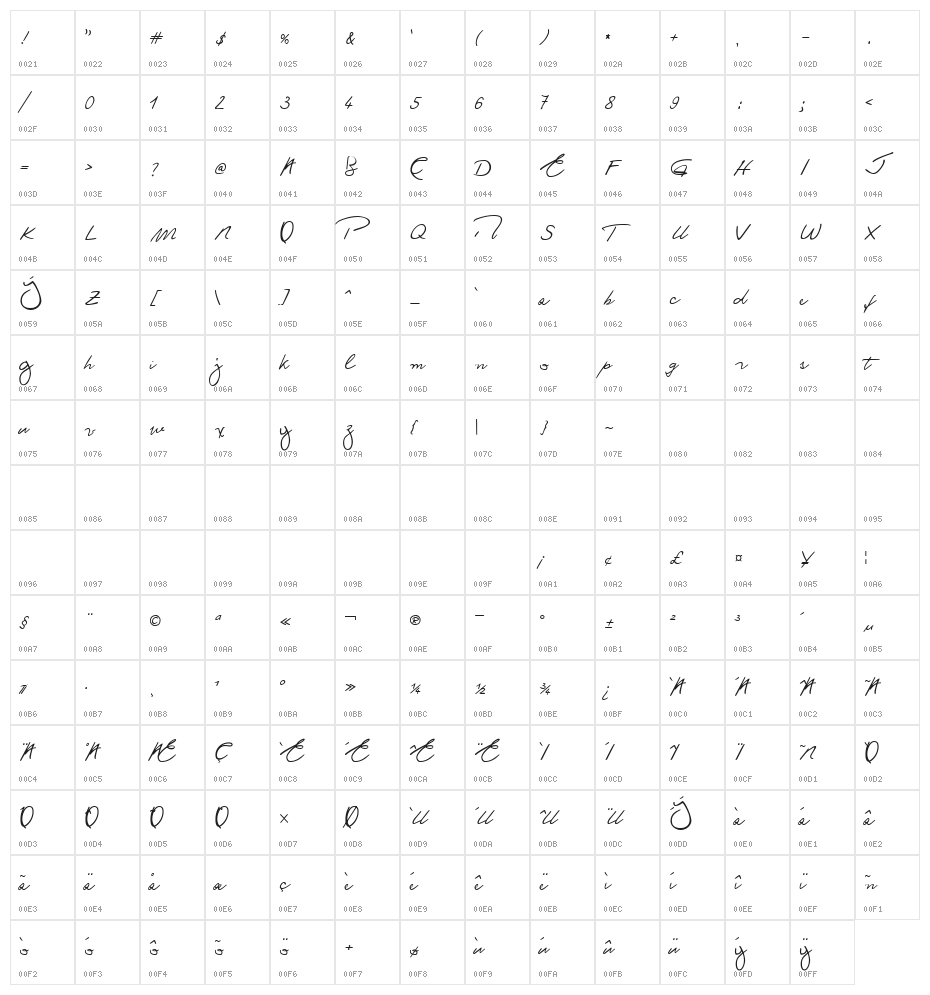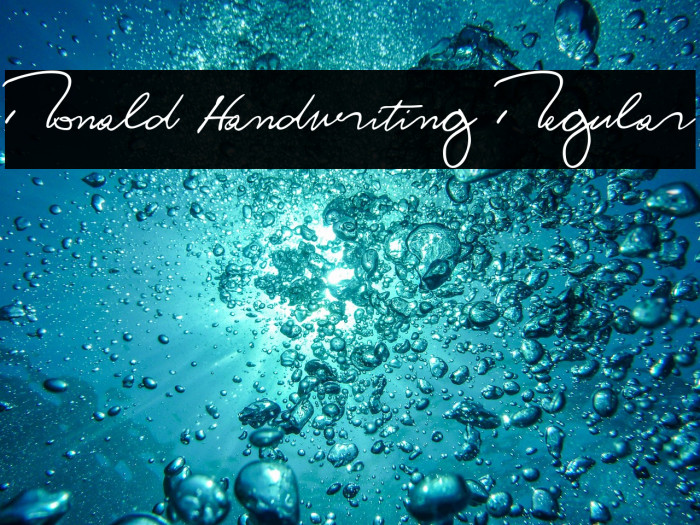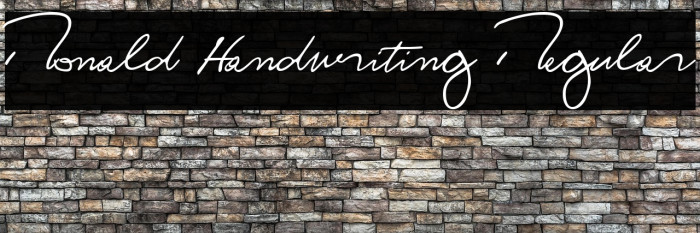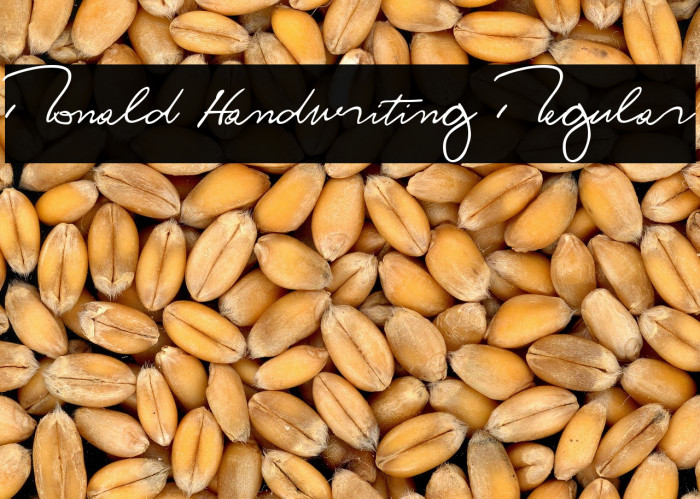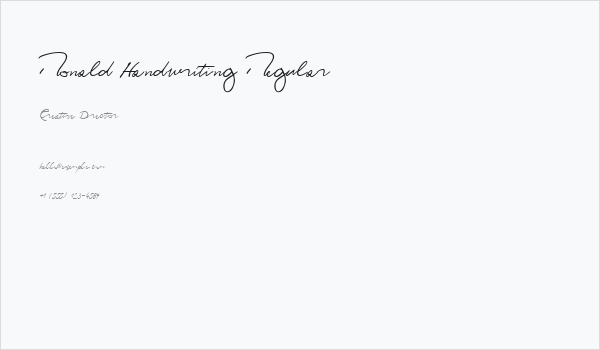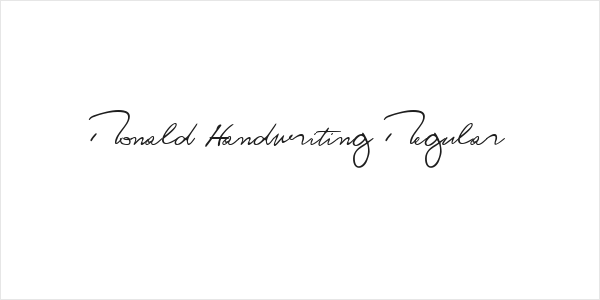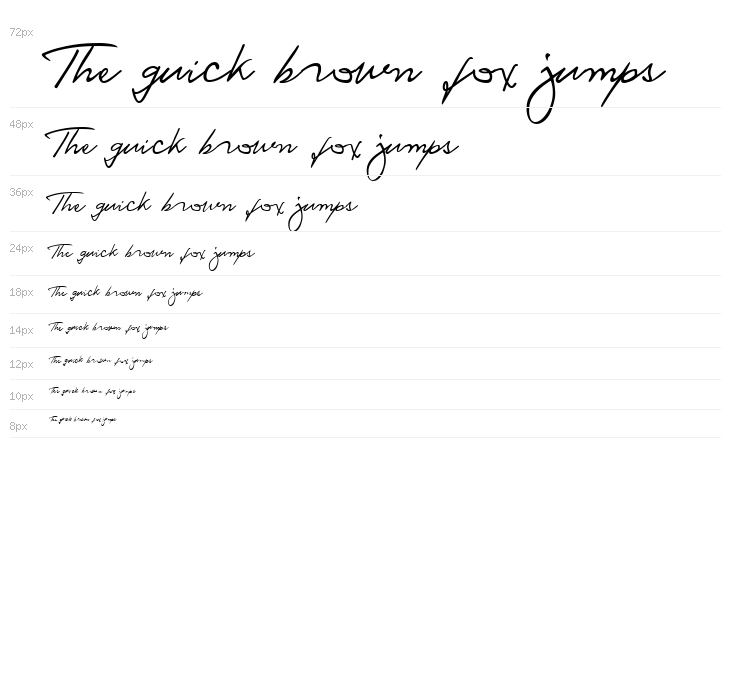
Ronald Handwriting Regular Font
Ronald Handwriting Regular Description
This font exudes a casual and personal touch, reminiscent of natural handwriting. The strokes are fluid and connected, giving it an authentic handwritten feel. The uppercase letters are bold and expressive, while the lowercase letters maintain a consistent flow. Numbers and special characters are crafted with the same attention to detail, ensuring a cohesive look across all elements. The overall appearance is elegant yet approachable, making it suitable for a variety of creative projects.
| Overall Style | Casual, Elegant |
| Proposed Projects | Ideal for personal invitations, greeting cards, artistic projects, and branding that requires a personal touch. |